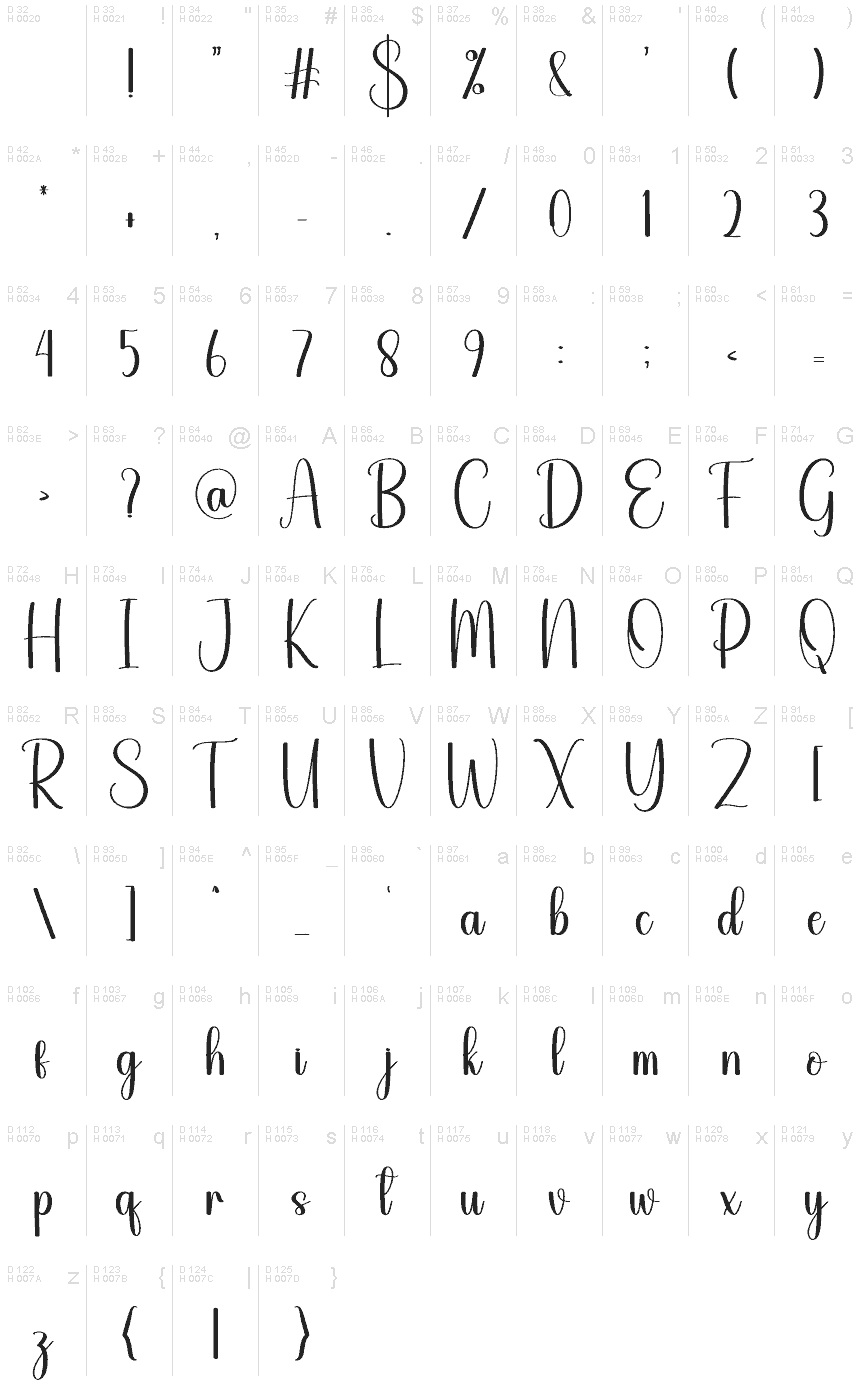
Freshener
Freshener font by Andi Moz is a free handwritten font that combines casual sophistication with an elegant, flowing design. The contemporary style adds an artistic flair to every text written in this typeface that can set the tone for exclusive projects.